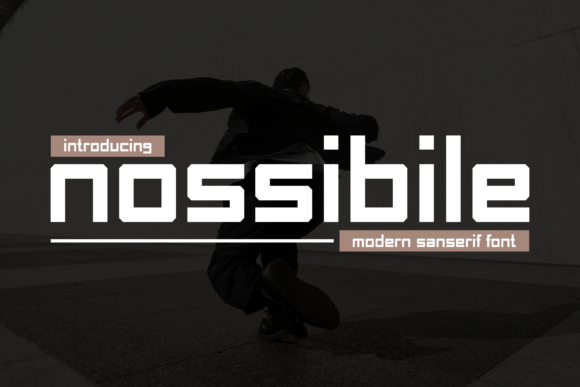
Introducing our new Nossibile Font, an alluring sans serif font family crafted to elevate your minimalist designs with unparalleled elegance and style.
Nossibile Font is meticulously designed to exude an aura of sophistication and clarity, making it the perfect choice for crafting logos, branding materials, and any project that demands a touch of timeless appeal. Its bold and authentic strokes evoke a sense of strength and confidence, while the carefully balanced spacing ensures effortless readability.
Step into a world of endless possibilities with Nossibile Font. Its versatile nature seamlessly adapts to a myriad of design applications, empowering you to create captivating headlines, eye-catching posters, and stunning digital content that resonates with your audience.
Immerse yourself in the world of Nossibile Font and discover a new level of creativity. Its modern aesthetic effortlessly blends with traditional elements, making it the ideal font for projects that seek to bridge the gap between the old and the new.
Whether you're a seasoned designer or embarking on your creative journey, Nossibile Font empowers you to express your unique vision with confidence. Its intuitive design and meticulously crafted characters ensure that your creations will leave a lasting impression.